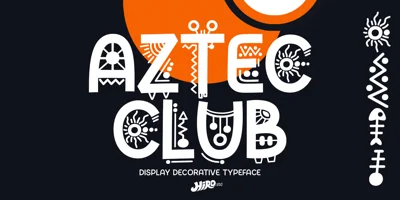
Aztec Club Font
This bold typeface excels in various dynamic applications including nightclub branding, music festival posters, tribal-inspired logos, adventure tourism materials, ethnic restaurant identities, cultural event promotions, streetwear designs, and exotic beverage packaging. The Aztec Club Font powerfully combines ancient Mesoamerican geometric patterns with contemporary club culture aesthetics, creating a unique visual fusion that pulsates with primal energy.
What makes this font truly exciting is its electrifying blend of ancestral symbolism and modern nightlife vibes, creating typography that feels both mystically ancient and urgently contemporary. The boldly designed characters feature angular geometric forms inspired by Aztec architecture and ceremonial art, infused with the raw energy of underground dance culture. Its distinctive personality merges tribal power with urban edge, making every word feel like a rhythmic celebration of cultural fusion.
The Aztec Club Font family includes essential variations for maximum impact: Regular, Bold, Extra Bold, Outline, and Shadow styles, plus decorative glyphs and pattern elements. Each family member maintains the signature tribal-meets-modern aesthetic while providing versatility for creating visually striking designs that command attention.